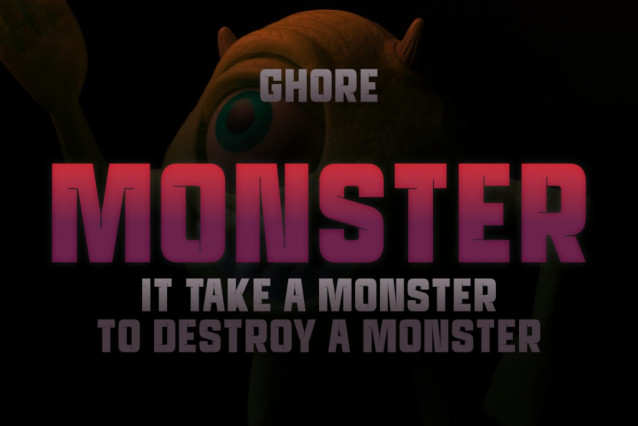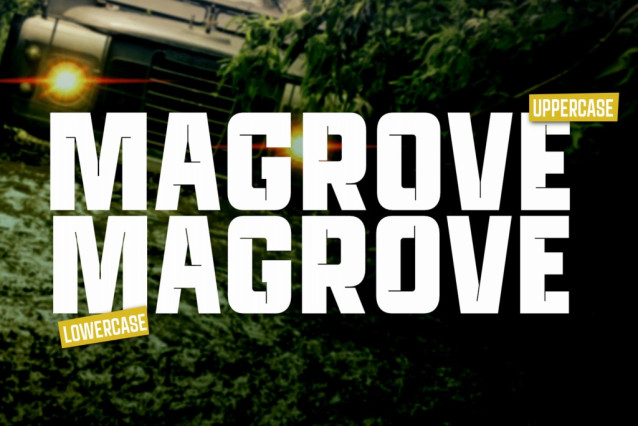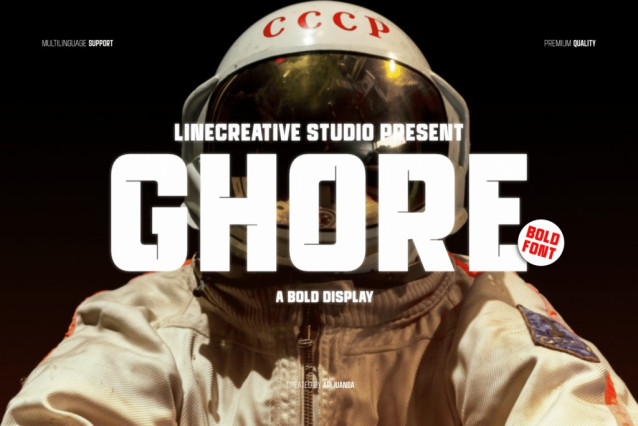
Ghore Font
Ghore Font A modern sans display font with a bold style, with sliced ​​grooves on each corner of the font body giving it a sharp and futuristic look.